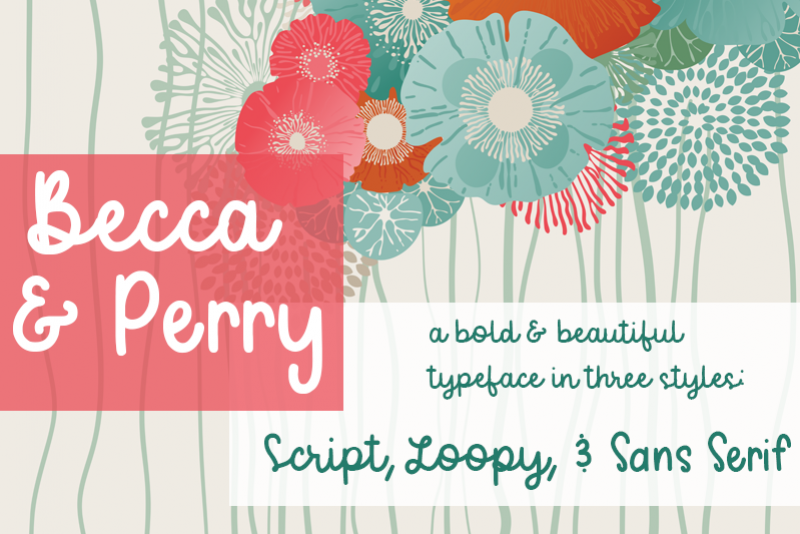
Becca & Perry
Becca & Perry is a one stop font family with two script fonts and one sans font. These three pair lovely together for all your designing needs! This typeface has three styles: Script, Loopy, and Sans, and you can use this font for all sorts of things, including:
• greeting cards
• invitations
• posters
• t-shirt designs
• SVG Designs
• And more...
• Becca & Perry Script
• Becca & Perry Loopy
• Becca & Perry Sans
• Uppercase Characters
• Lowercase Characters
• Multilingual support for various languages: French, Spanish, Italian